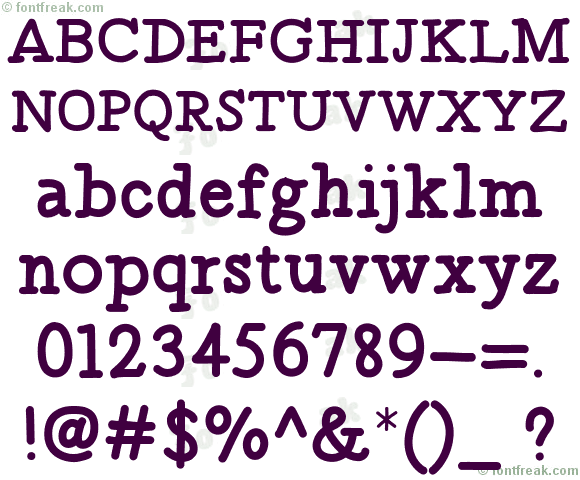
Spicy Taquito
About Spicy Taquito
Spicy Taquito is a captivating display font designed by Syaf Rizal, characterized by its playful and dynamic style. As a decorative typeface, it features a distinct combination of bold strokes and fun, uneven curves that create an engaging visual appeal. The font exudes a sense of liveliness, making it perfect for various creative projects. With its moderate stroke weight and minimal contrast, Spicy Taquito ensures readability while adding a touch of whimsy.
The font’s unique personality makes it ideal for use in vibrant restaurant menus, where its fun character can evoke a sense of flavor and excitement. Additionally, it shines in promotional materials for food festivals or culinary events, where it can easily grab attention and communicate a lively atmosphere. Wedding invitations can also benefit from its charming flair, providing a light-hearted touch that complements a joyful celebration. Graphic designers will find this font particularly useful when creating eye-catching posters or social media graphics aimed at engaging a youthful audience.
What sets Spicy Taquito apart is its ability to blend fun and functionality, making it not just visually intriguing but also highly versatile. Whether you’re designing a menu that needs to pop or crafting an invitation that captures the essence of joy, Spicy Taquito font free download provides a unique solution that can elevate any project to new heights. Embrace the spirited nature of this font and let it bring a lively touch to your designs.